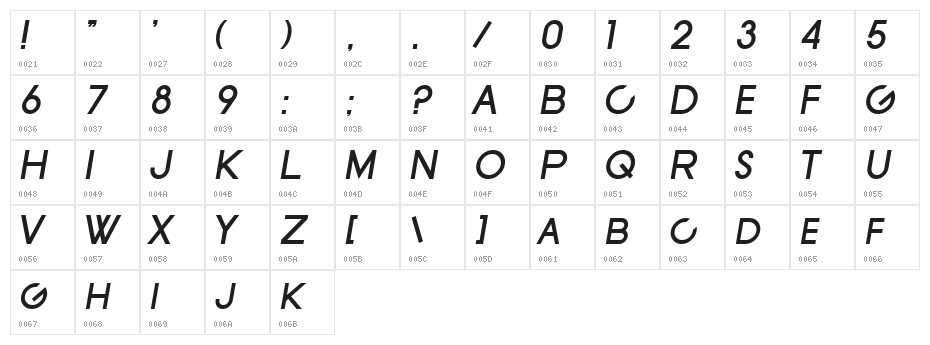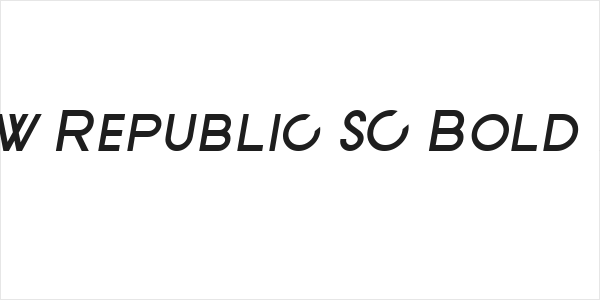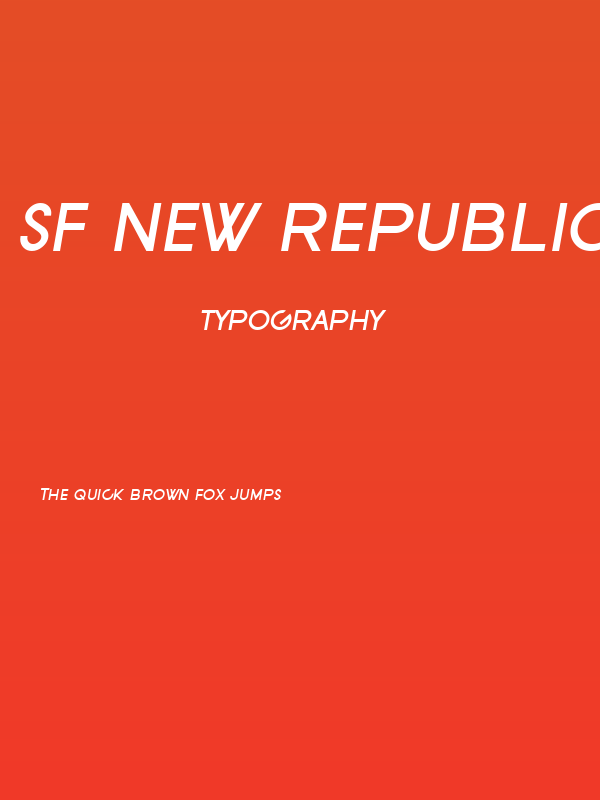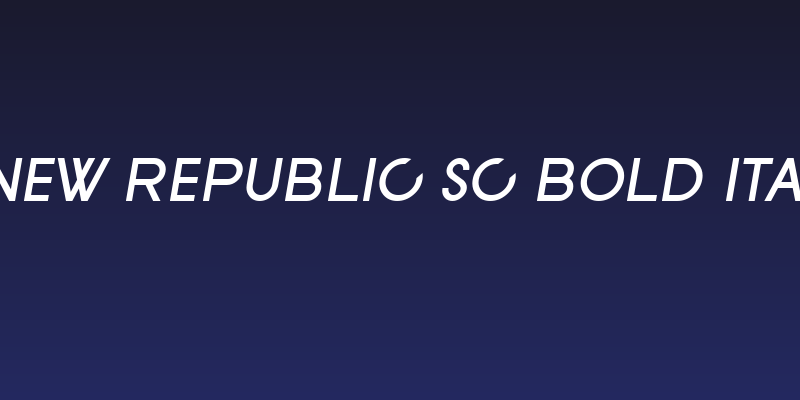
SF New Republic SC Bold Italic Font
SF New Republic SC Bold Italic Description
This font exhibits a bold and italicized style with a modern and sleek appearance. The characters are slightly condensed, giving a compact and efficient look. The strokes are consistent in thickness, providing a medium contrast that enhances readability while maintaining a stylish flair. The uppercase and lowercase letters are well-proportioned, and the numerals are clear and distinct. Special characters are included, maintaining the overall aesthetic of the font. This typeface is suitable for projects that require a contemporary and professional feel.
| Proposed Projects | Ideal for branding, headlines, advertising, and modern web design projects. |